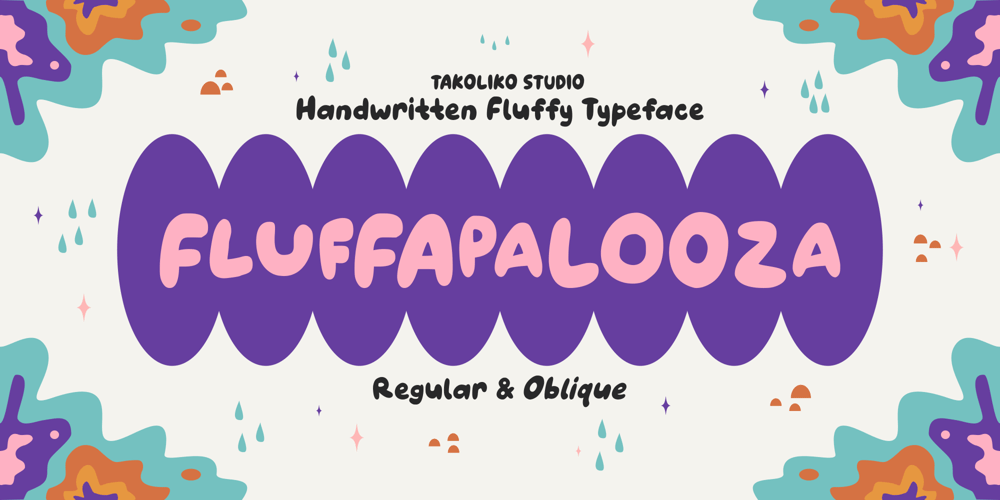
Fluffapalooza Font Family was designed by Deni Hidayat and published by takoliko. Fluffapalooza contains 2 styles and family package options. Fluffapalooza a fluffy handwritten font. It has a fun, warm, raw, cute, happy atmosphere, and gives a little bit quirky dorky vibes. Inspired by a personal touch of cuteness, cheerfulness, and passion. Fluffapalooza has a bouncy style if you acces the alternate. you can have a lot of variation by combining the glyph whatever you want. Fluffapalooza can easily be matched to an incredibly large set of projects and is good for communicating your brands, especially if you want to make a raw, artsy, handmade, and add a personal touch. So spice up your design and enjoy the font.